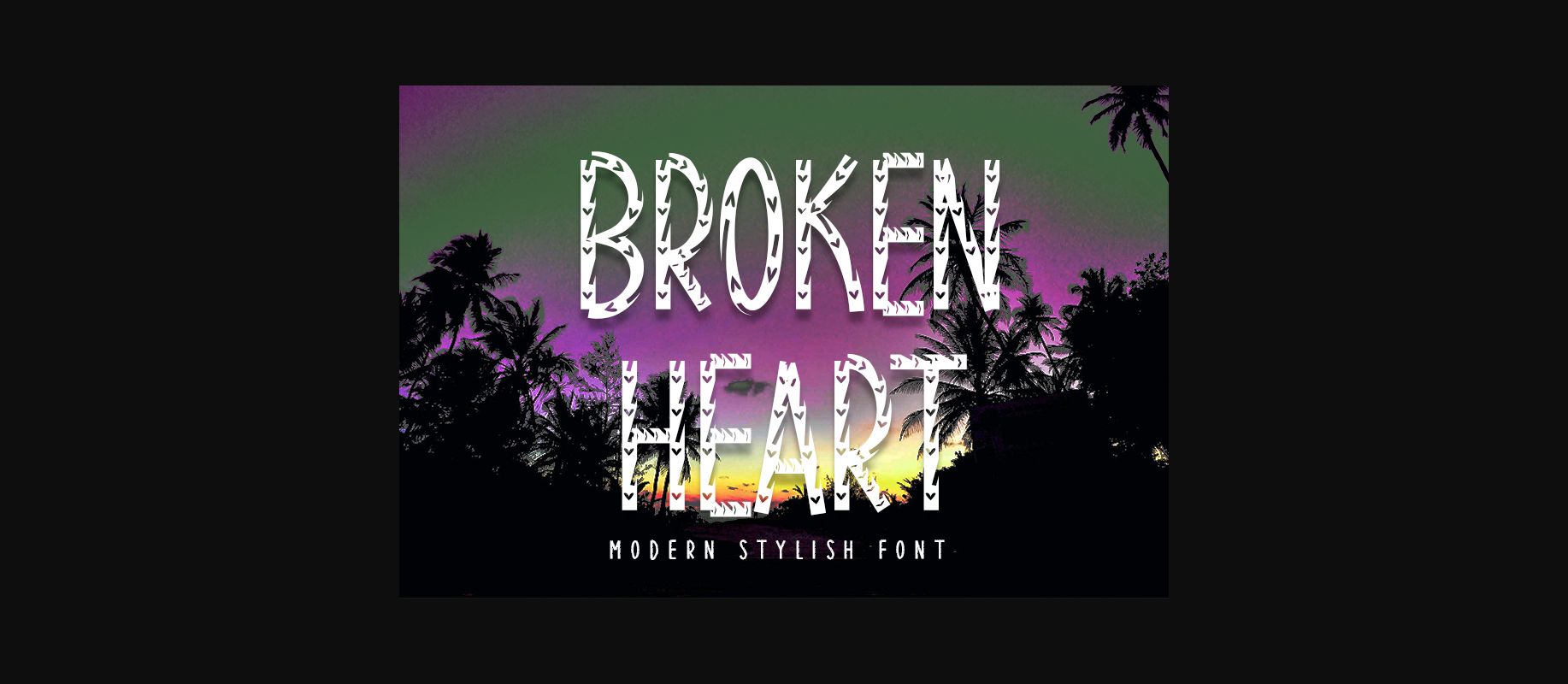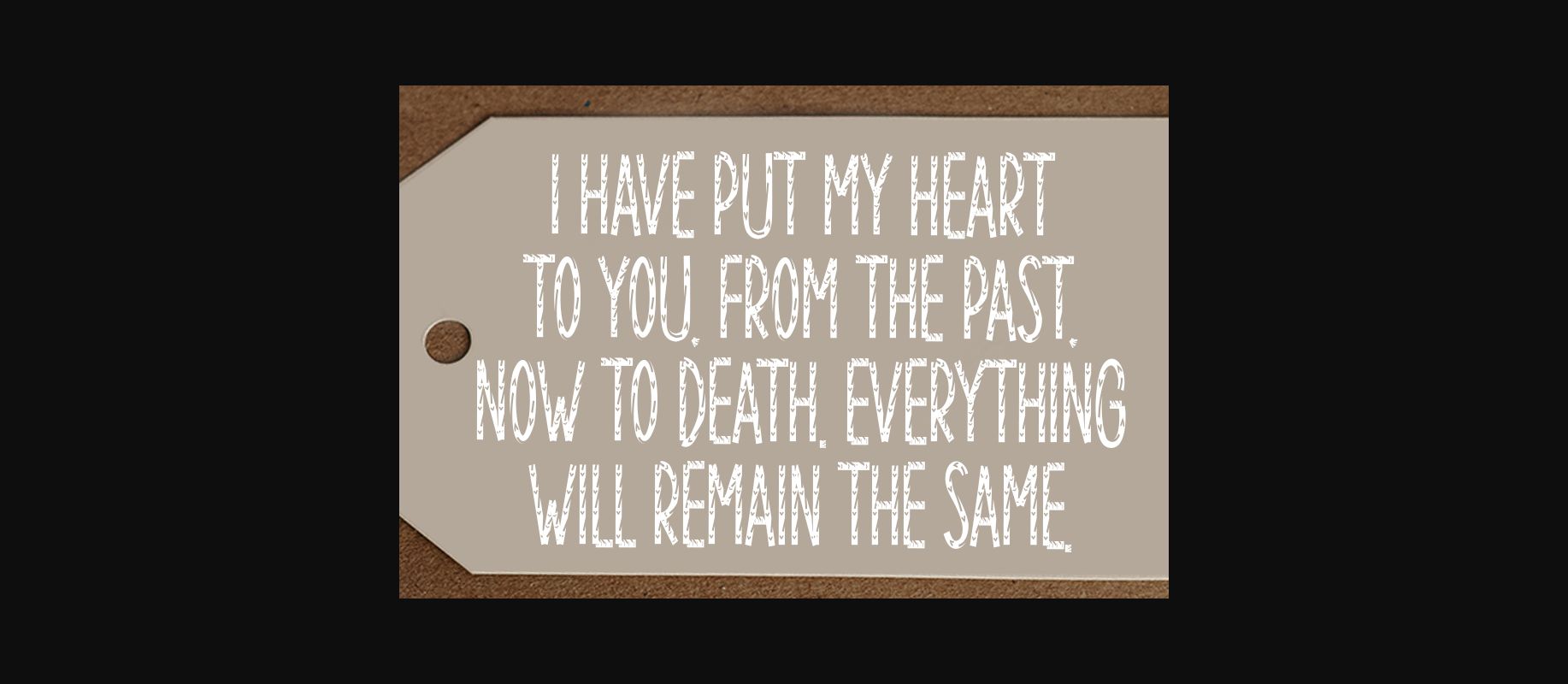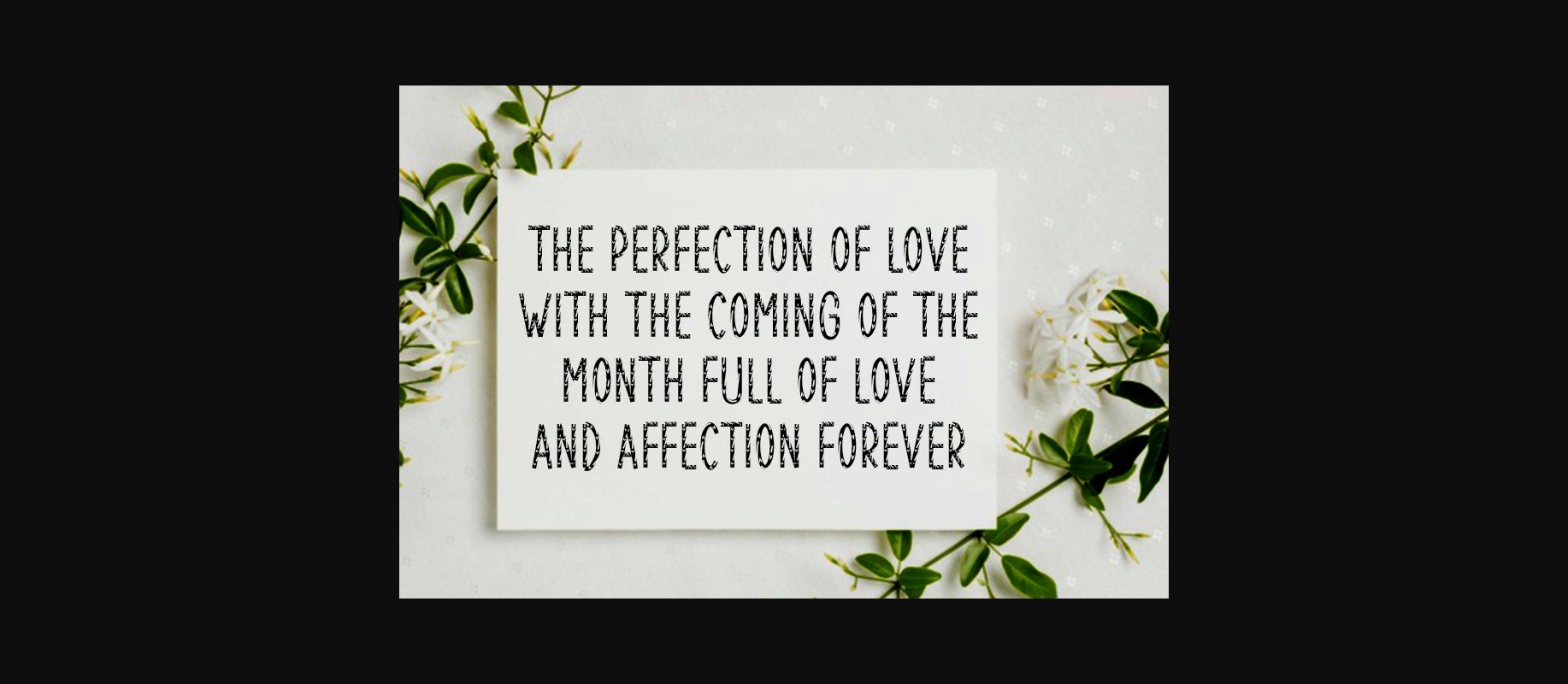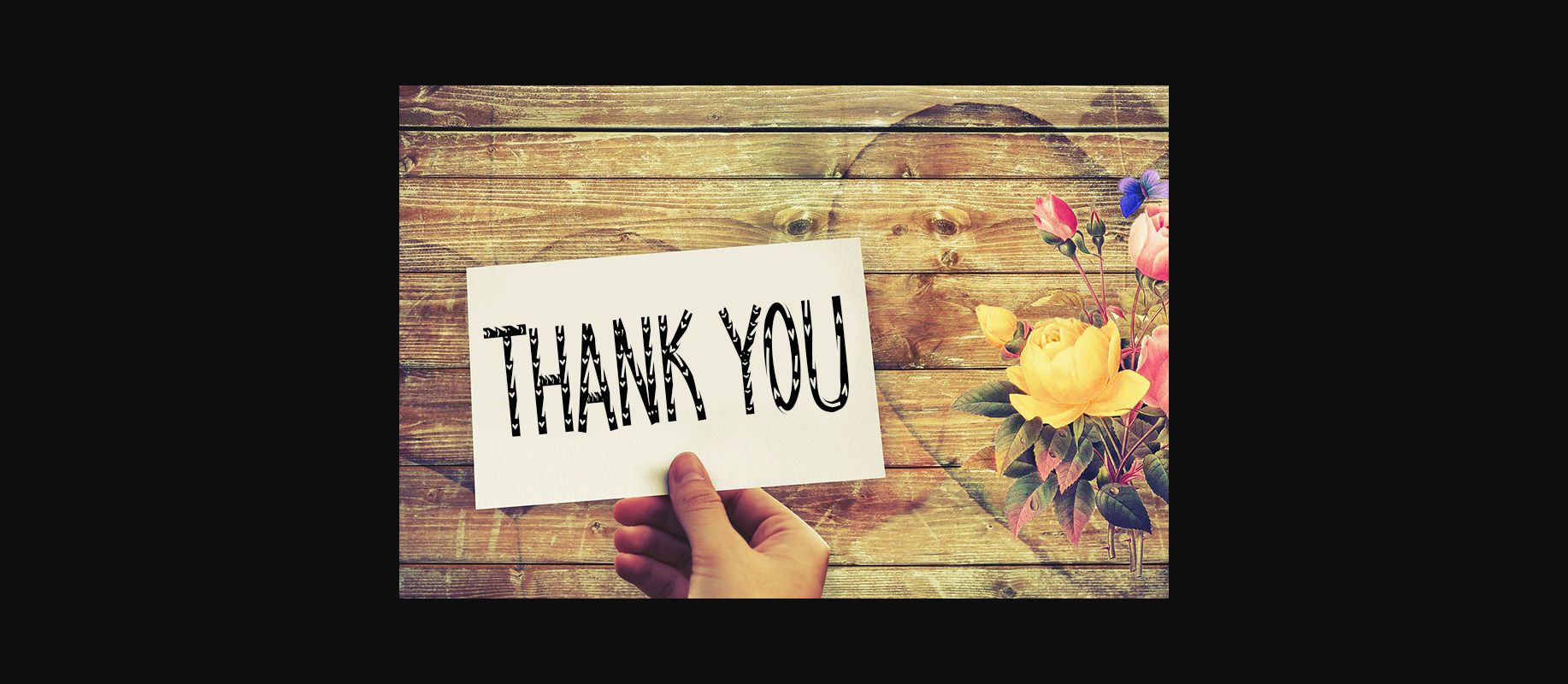
Broken Heart Font
About Broken Heart Font
Broken Heart is a unique decorative font. It’s playfulness make it great for creative projects, be it inspirational wall posters or for communicating your brand.